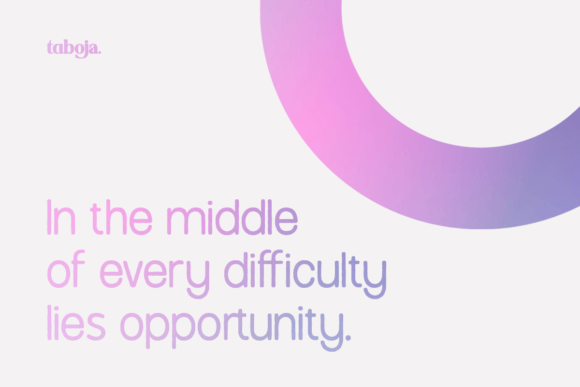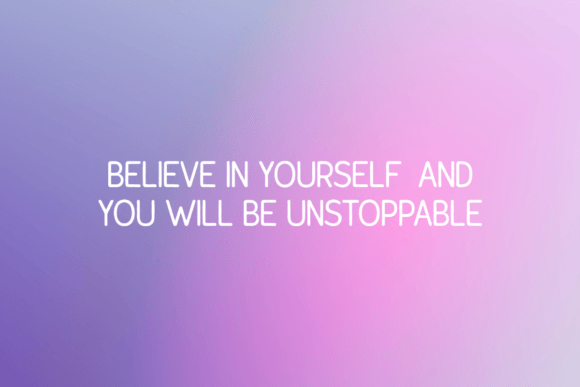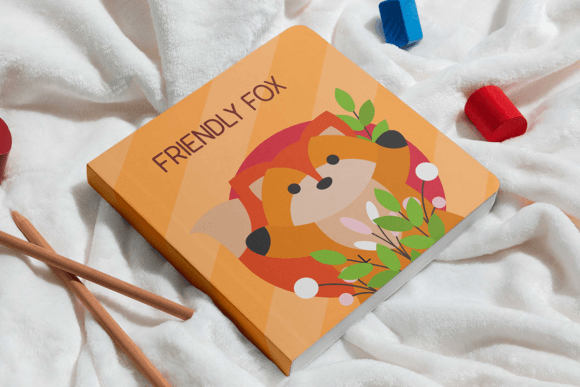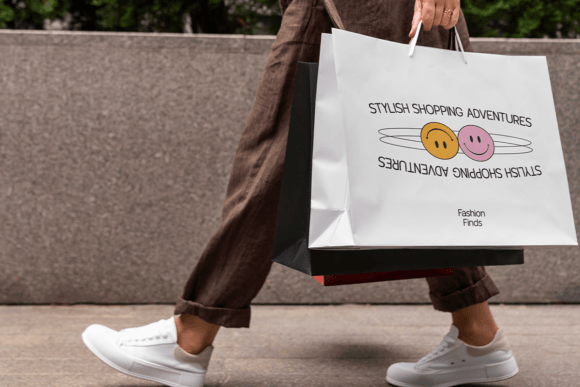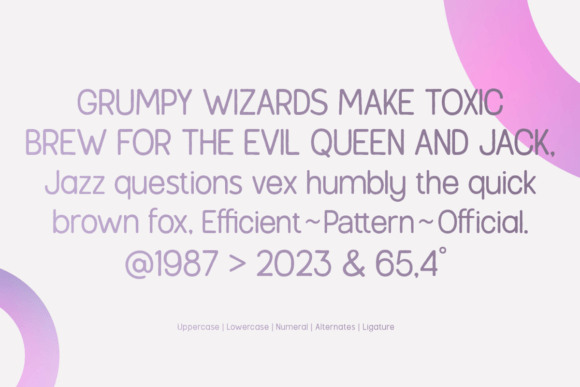
Discover the Perfect Blend of Vintage Charm and Modern Sophistication
Remember that moment when you stumbled upon the perfect vintage bookstore, surrounded by worn leather-bound books and the faint scent of aged paper? The feeling of nostalgia and curiosity that washes over you as you flip through the pages is exactly what we aimed to capture with the Coffina Font.
This rounded and rough typeface exudes an organic, hand-written aesthetic that’s perfect for designs requiring a modern vintage, elegant, or soft touch. As a designer, you know the importance of finding the right font to elevate your project and make it truly stand out. That’s where Coffina Font comes in – carefully crafted to suit a wide range of graphic design needs, it’s the perfect addition to your toolkit.
Coffina Font Key Features
- Font Family: Coffina Font is a modern sans-serif font family, ideal for various design applications.
- Character Count: The font family includes a wide range of characters, including uppercase and lowercase letters, numbers, and punctuation marks.
- Size: The font family includes 8 font weights, ranging from light to bold, allowing designers to choose the perfect weight for their project.
- Unique Characteristics: Coffina Font features a clean, modern design with a subtle rounded edge, making it perfect for use in logos, headings, and body text.
Coffina Font Review
Coffina Font is a unique and interesting font that caught my attention. Here are my thoughts on what works well and what could be improved.
- Beautiful, handwritten feel: Coffina Font has a lovely, expressive quality that makes it perfect for creative projects, especially those that need a touch of personality.
- High-quality rendering: The font is well-designed and looks great at various sizes and resolutions.
- Good legibility: Despite its handwritten feel, Coffina Font is still easy to read, making it a great choice for body text.
- May not be suitable for formal projects: Coffina Font’s handwritten feel may not be the best choice for formal or professional projects where a more traditional font is needed.
- Not as versatile as other fonts: While Coffina Font is great for creative projects, it may not be as versatile as other fonts that can be used for a wider range of projects.
Coffina Font is a lovely font that is perfect for creative projects that need a touch of personality. While it may not be suitable for formal projects, it’s a great choice for anyone looking for a unique and expressive font. With its beautiful, handwritten feel and good legibility, Coffina Font is definitely worth considering for your next project.
Use the Coffina font in bold or italic styles to add emphasis and create visual interest.
Combine the Coffina font with other fonts to create a unique and visually appealing design.
Experiment with different font sizes and colors to create a cohesive and professional-looking design.
The Coffina font is ideal for:
Designing branding materials, such as logos